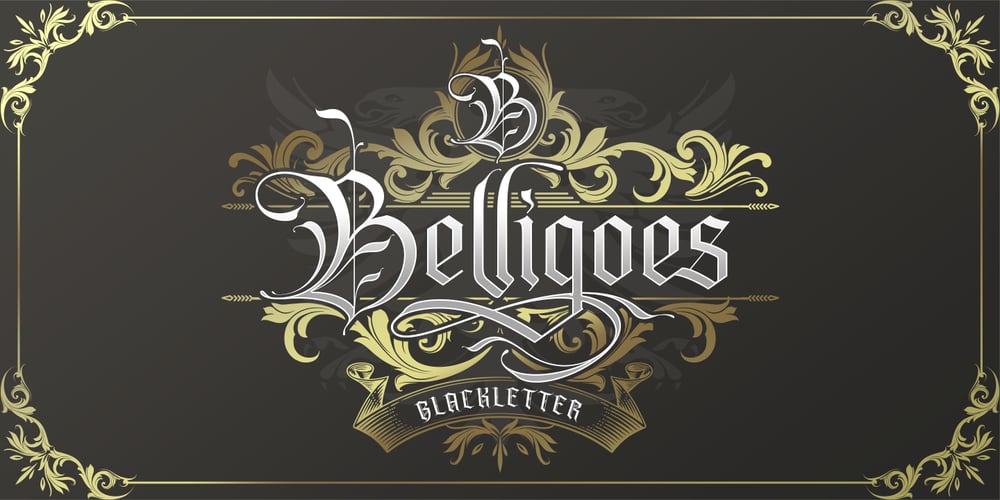
Belligoes
Belligoes font
Belligoes Font Family was designed by Alit Suarnegara and published by Alit Design. Belligoes contains 1 styles and family package options. ✒️⬛Belligoes⬛✒️ Font is a font inspired by the Blackletter typeface, made with a modern impression but still looks strong and unique. Supported by alternative options such as swash, ligature and alternative characters, making the Belligoes font very easy to create designs with strong or dark themes. In addition, the Belligoes font is also supported with multilingual characters that can be used in several international languages.The Belligoes font is very suitable for use in making music album cover designs, tattoo logos, wishkey labels, packaging pomades and so on which are made with dark and strong concepts.